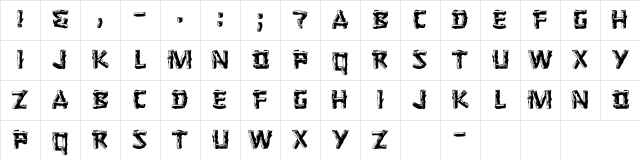
Logger Regular Free Font
Logger Regular
Design Context for Logger
Logger is a composed and adaptable typeface that performs quietly and consistently across a wide range of design contexts.
Pro Tip: Use Logger in both headline and body roles to test its range before committing to a single application.